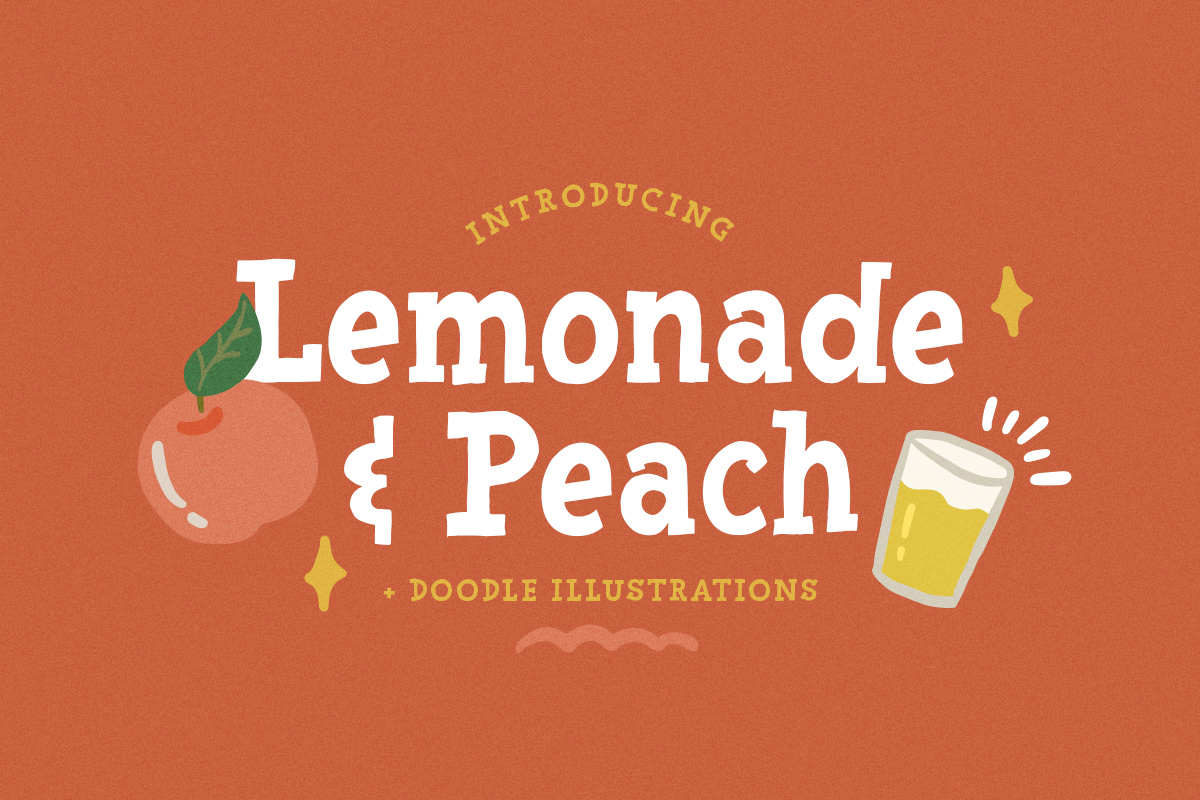
Lemonade Peach Font
The Lemonade Peach Font is a sweet and playful typeface designed to bring a touch of sunny charm to your creative projects. With its handcrafted, brush-style feel and lively letterforms, this font is perfect for a wide range of applications that need a positive and fun aesthetic. It’s an excellent choice for branding for food and beverage products, social media graphics, greeting cards, and packaging that aims to feel fresh and approachable. The Lemonade Peach Font has a delightful personality that makes it stand out, ensuring your designs are memorable and full of happy energy.
What makes the Lemonade Peach Font so exciting is its exceptional ability to convey a sense of fun and summertime warmth. This isn’t just a font; it’s a tool for creating a positive mood and connecting with an audience on an emotional level. The carefully crafted strokes and quirky details of each character give the font a unique charm that is hard to ignore. It feels authentic and genuine, making it a perfect choice for brands and projects that want to communicate with a warm, personal voice. The Lemonade Peach Font is a powerful tool for designers who want to create work that feels fresh, vibrant, and full of life.
The Lemonade Peach Font family is typically rich with features that give designers extensive creative control. It often includes a full set of uppercase and lowercase letters, numbers, and punctuation. The font truly shines with its numerous ligatures and swashes, which allow you to create seamless connections and add playful flourishes to your text. These stylistic alternates provide the flexibility to customize your typography, making every design feel unique and hand-lettered. This versatility ensures that you can use the font for everything from a simple headline to a more intricate design layout, all while maintaining its charming personality.